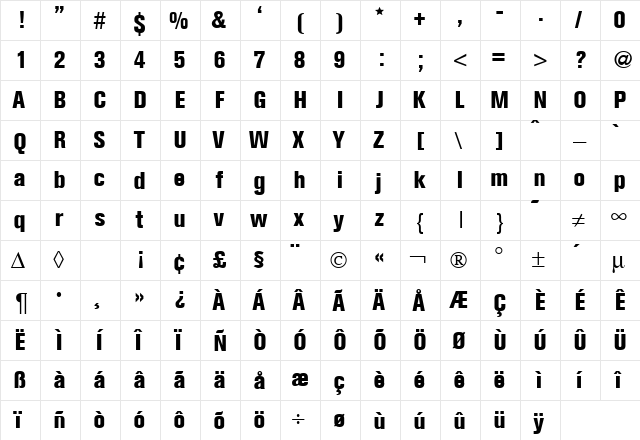
AkzentCondExtrabold Regular
Design Context for AkzentCondExtrabold Typeface
AkzentCondExtrabold is a composed and adaptable typeface that performs quietly and consistently across a wide range of design contexts. The heavy weight commands attention and anchors typographic hierarchies. The condensed width makes it efficient for tight spaces without sacrificing legibility.